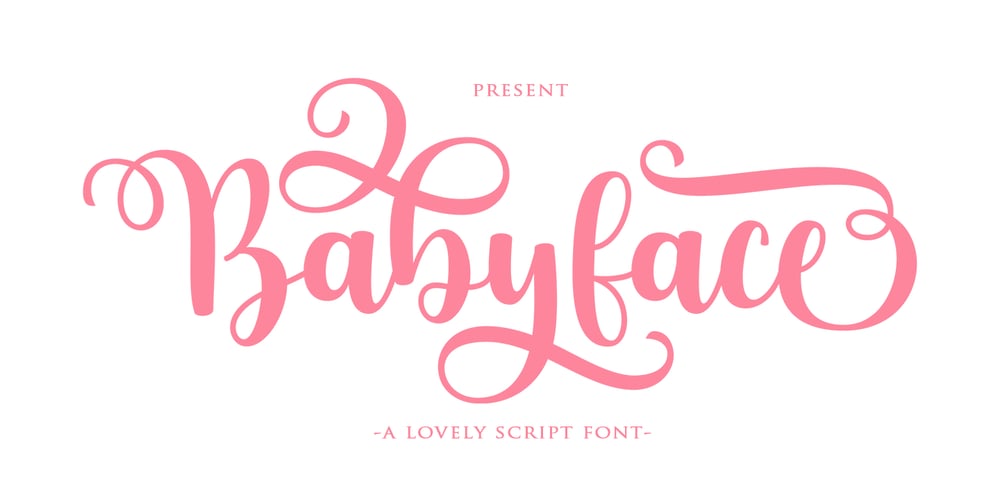
Babyface
Babyface font
Babyface Font Family was designed by Muammar Kadafi and published by Attract Studio. Babyface contains 4 styles and family package options. Babyface Script is a beautiful modern calligraphy typeface, I hope you will be interested in this font, if you want to use it for your work.This font can be used easily and simply because there are many features in it. contains a complete set of lowercase and uppercase letters, assorted punctuation, numbers, and multilingual support. Babyface is very suitable for market designs being developed today, this font has a stylish, trendy, natural and soft font, with this font you can take advantage of opportunities every moment is a great way to highlight the celebration of the best of the party, because this font will be an advocate for the purposes such as wedding invitations, branding, parties, graduations, birthdays, gatherings, etc.Thank you,Attract Studio